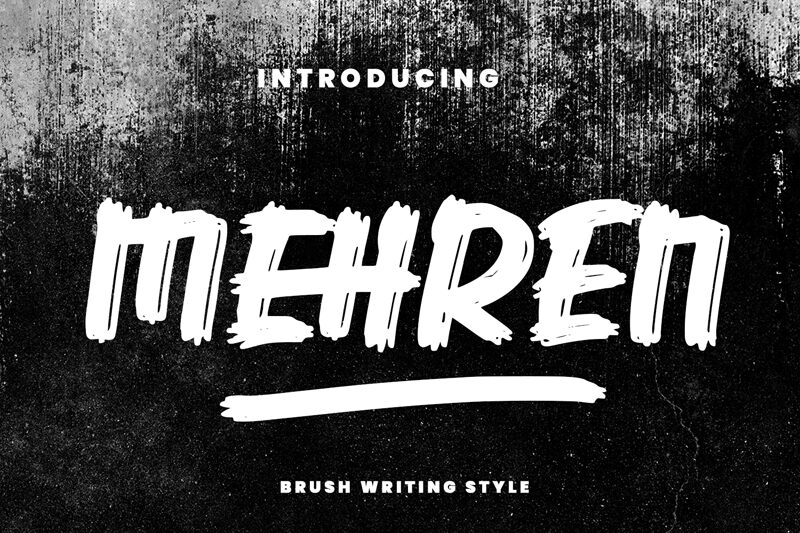
Mehren Brush, a bold and captivating brush font created by Typetemp Studio, exudes a sense of mystery and intrigue. This striking typeface boasts an organic, hand-crafted aesthetic, with each letter bearing the distinct impression of a skilled calligrapher's touch. The sharp, angular strokes and dramatic flourishes lend the font an unmistakable air of intensity, making it a compelling choice for projects that demand a touch of the ominous or the macabre.
Mehren Brush's versatility extends beyond its striking visual appeal, making it a valuable asset for designers seeking to add depth and personality to their work. Its bold, attention-grabbing presence makes it an excellent choice for headlines, titles, and eye-catching display text, while its unique character can also be leveraged in branding, packaging, and editorial design to create a lasting impression on the viewer.